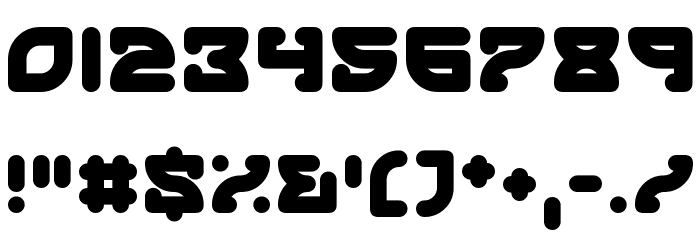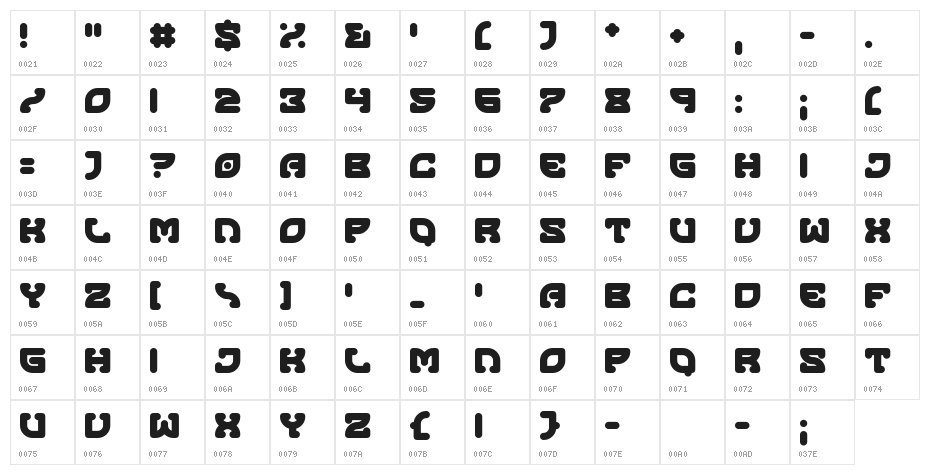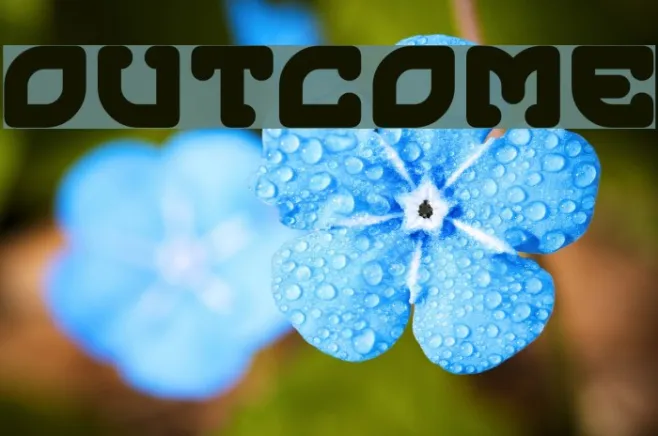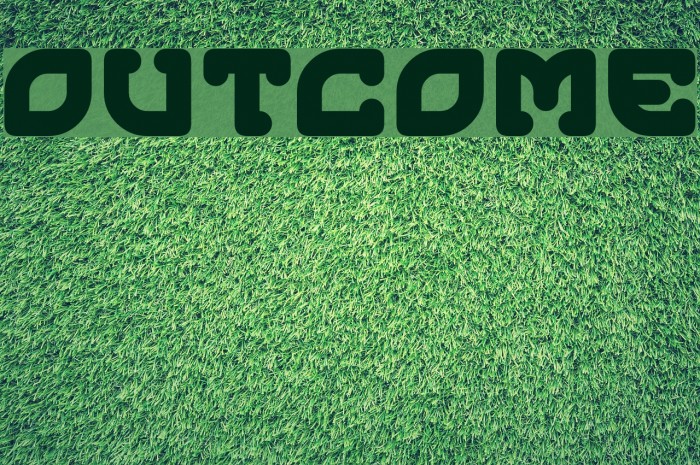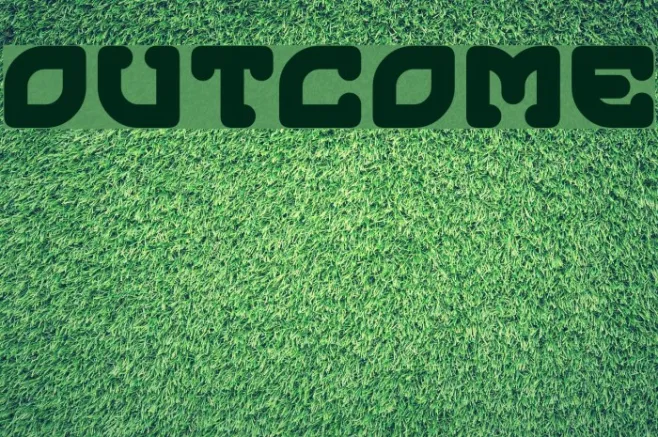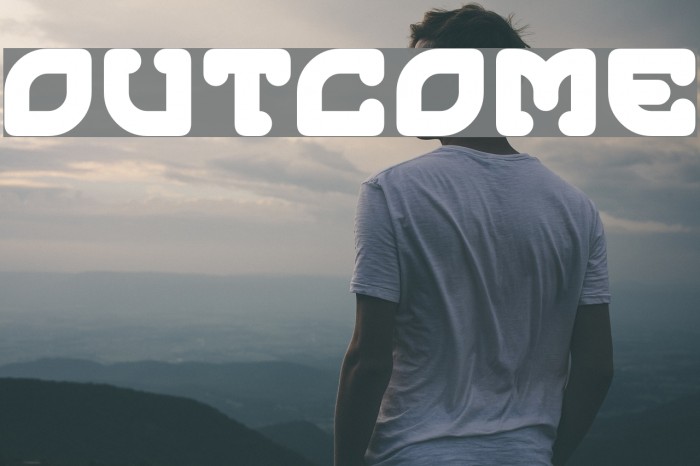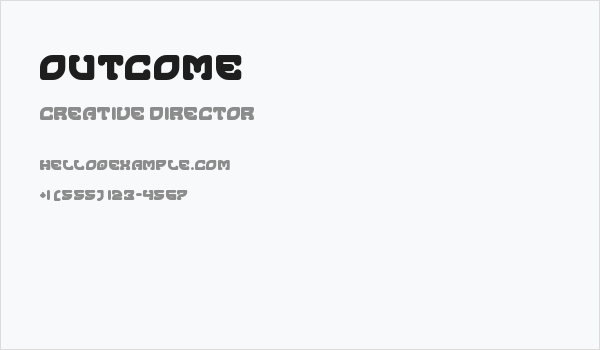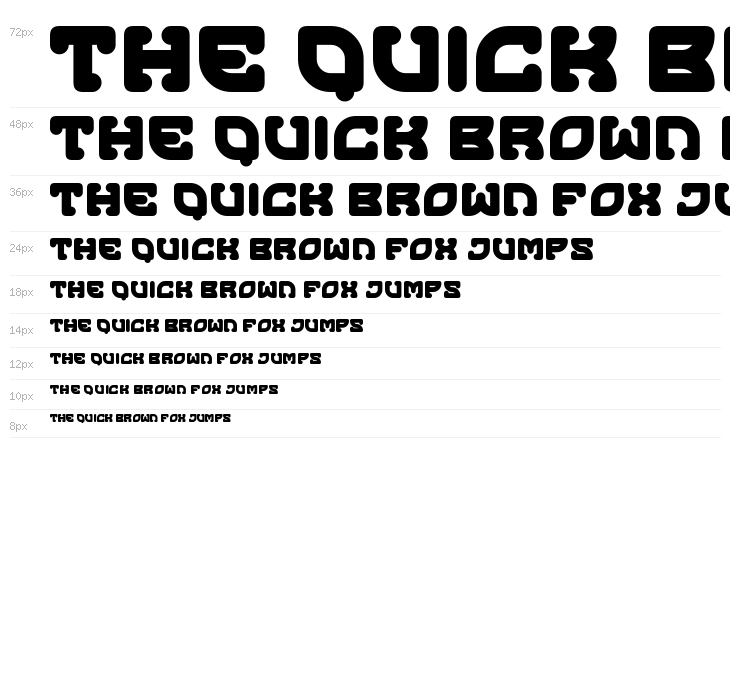
Outcome Font
Outcome Description
This font features a bold and rounded style with a distinct geometric influence. The characters are uniformly thick, creating a strong visual impact. The rounded edges soften the overall appearance, making it approachable while maintaining a modern and futuristic feel. The uniformity in stroke width across all characters contributes to a cohesive look. The font includes both uppercase and lowercase letters, numbers, and a variety of special characters, all designed with the same bold, rounded aesthetic. This style is particularly eye-catching and suitable for projects that require a strong, modern presence.
| Proposed Projects | Ideal for branding, headlines, posters, and any design work that requires a strong, modern aesthetic. |